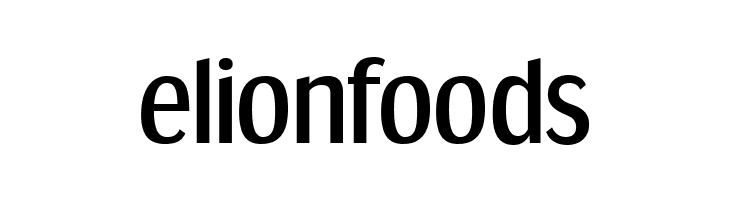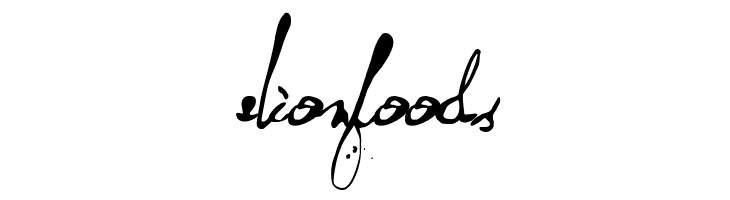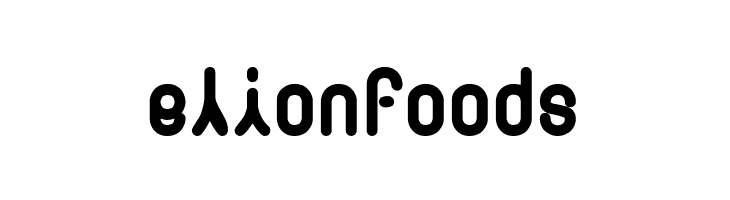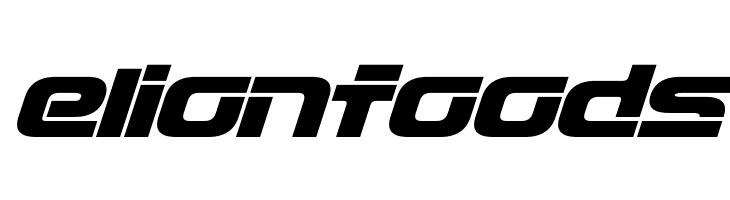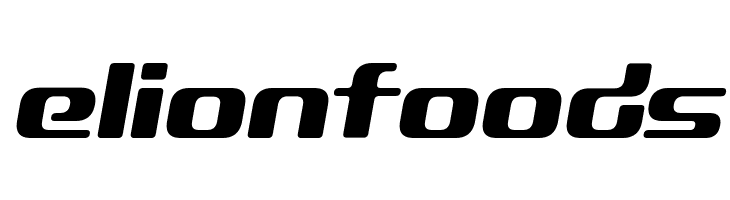
A modern, clean sans-serif font with a balanced and professional appearance.
An ornate and decorative script font with intricate swirls and flourishes.
An expressive, calligraphic font with fluid strokes and dramatic flourishes.
A bold, rounded font with a modern and playful style.
A bold, geometric font with rounded characters and a modern aesthetic.
A bold, futuristic font with angular, oblique letterforms and a modern aesthetic.